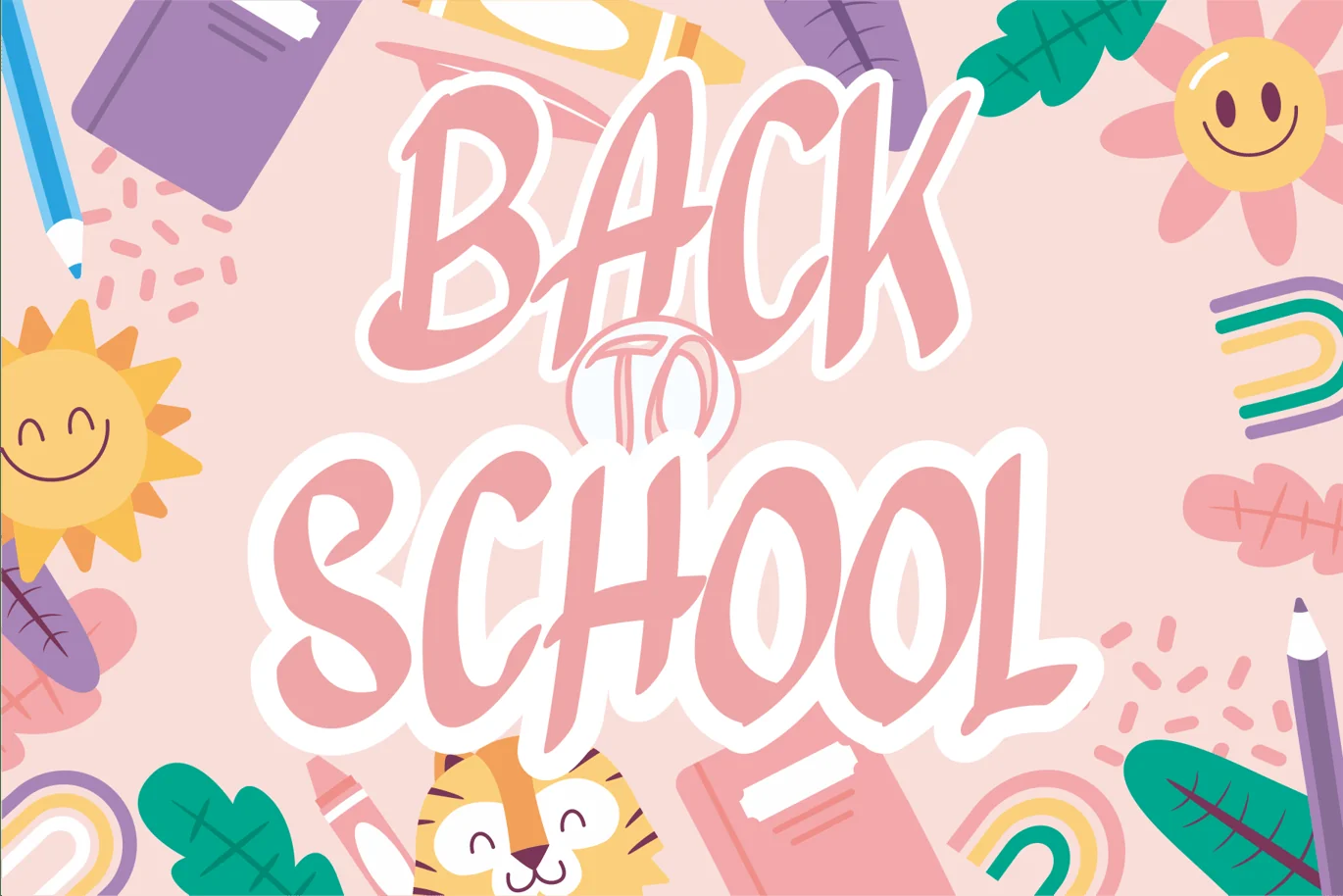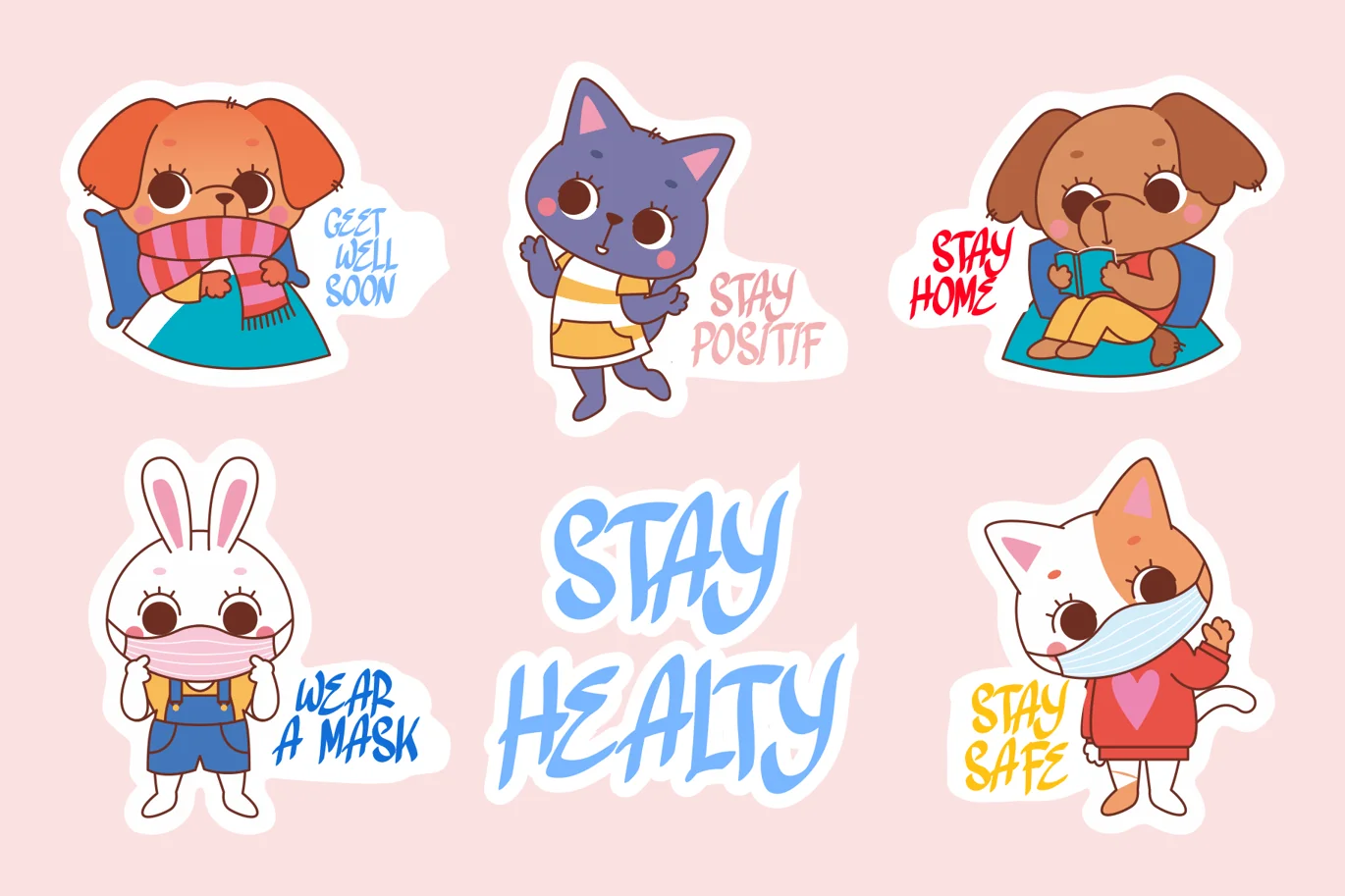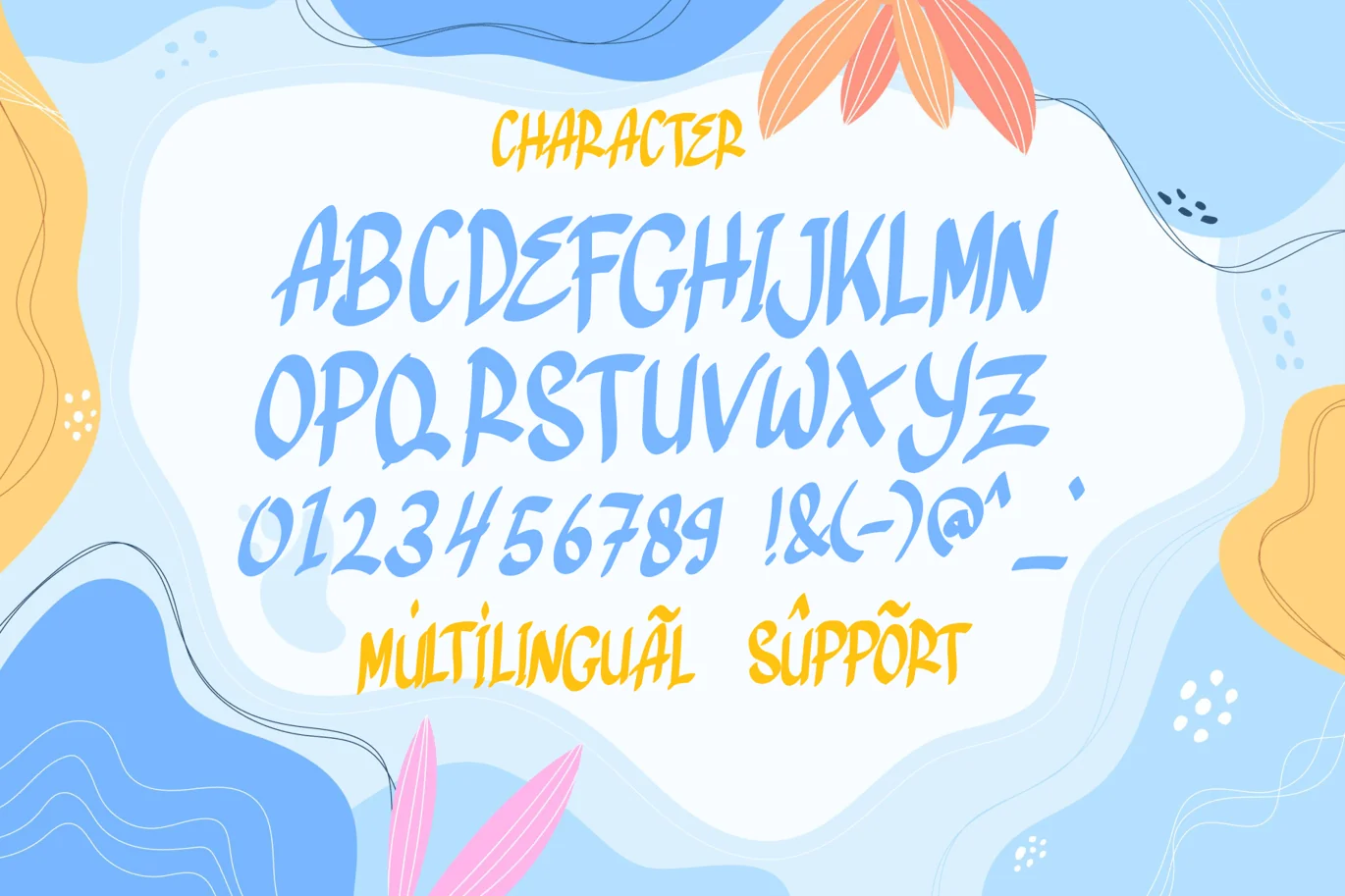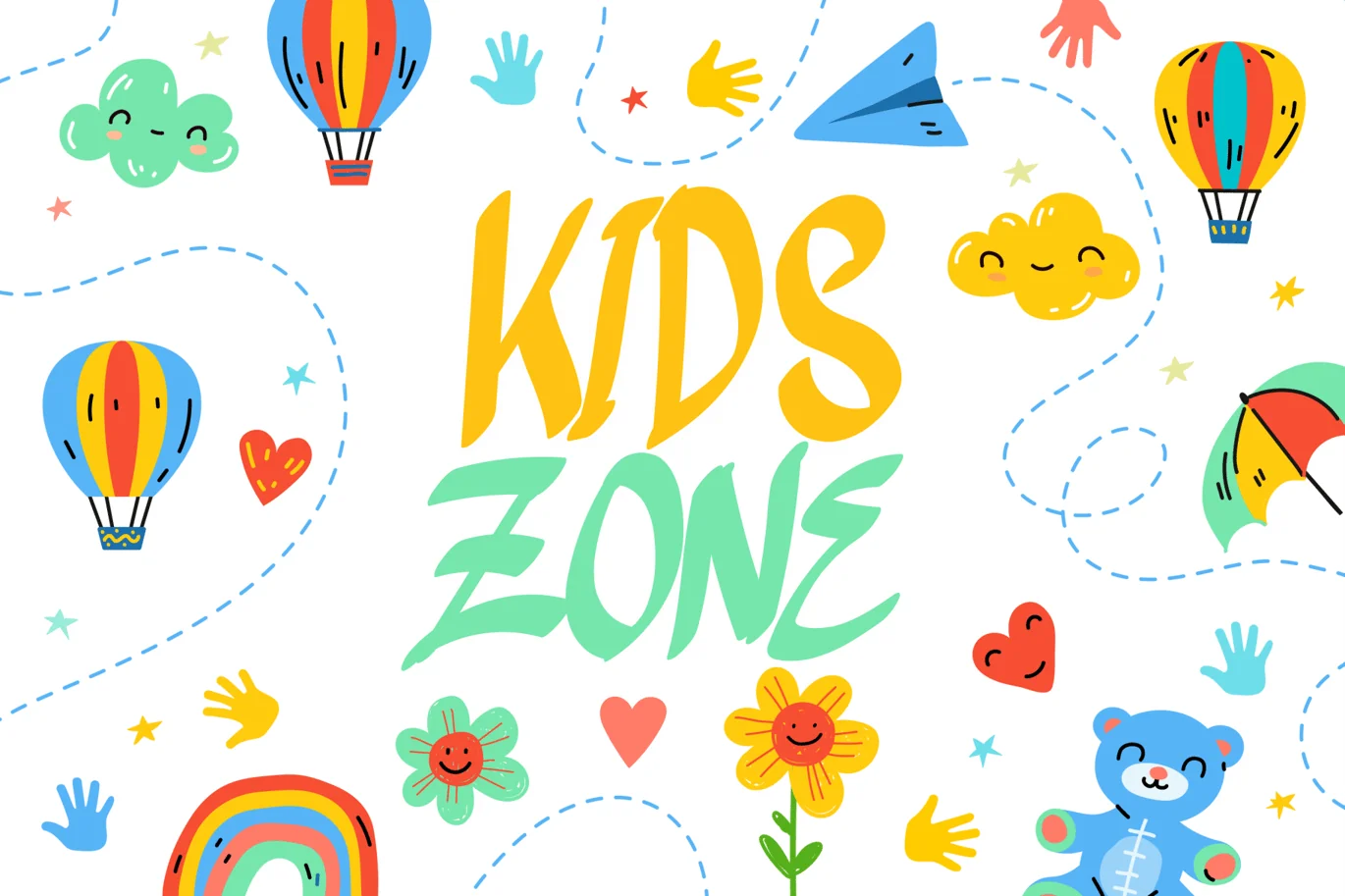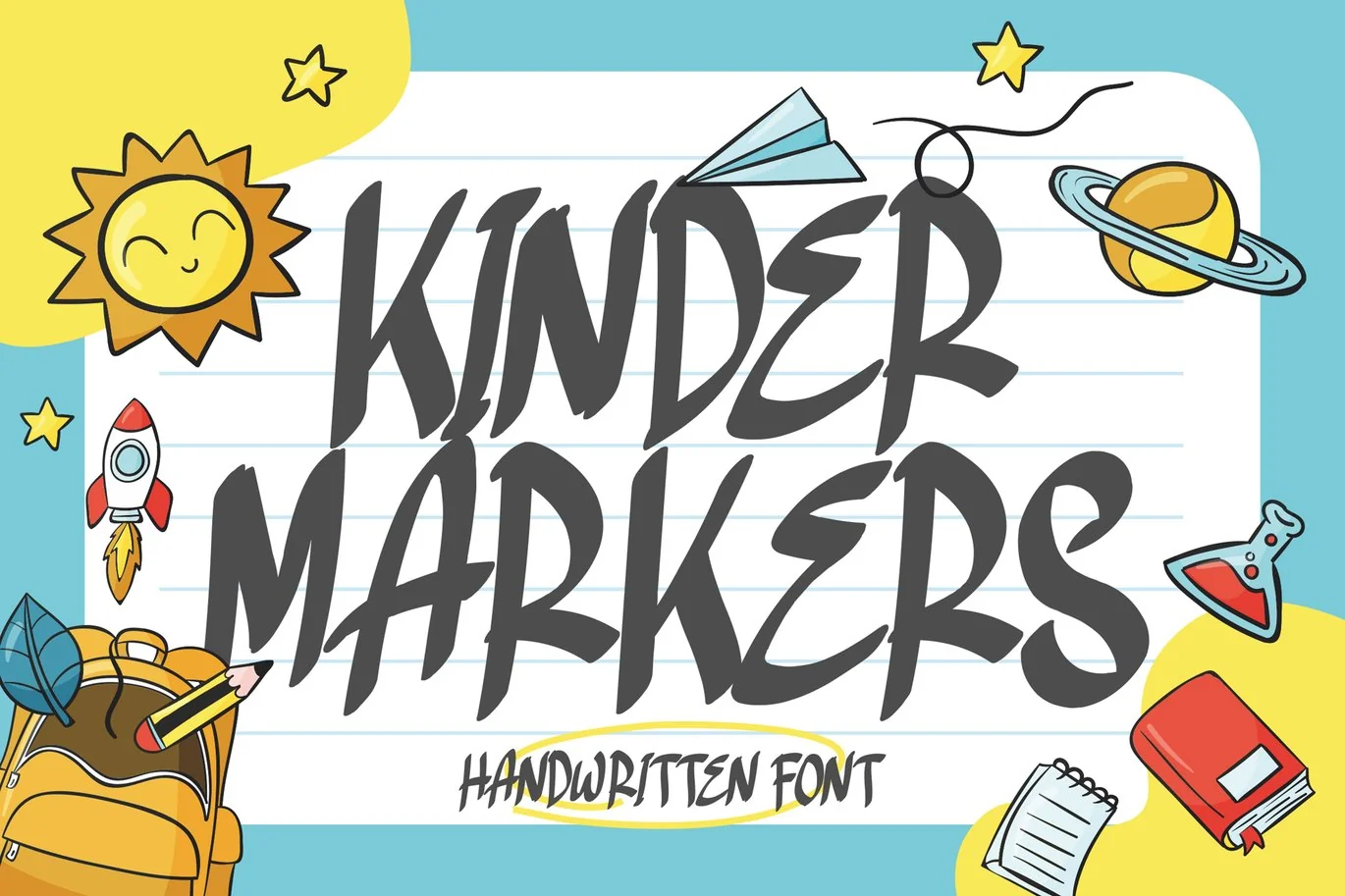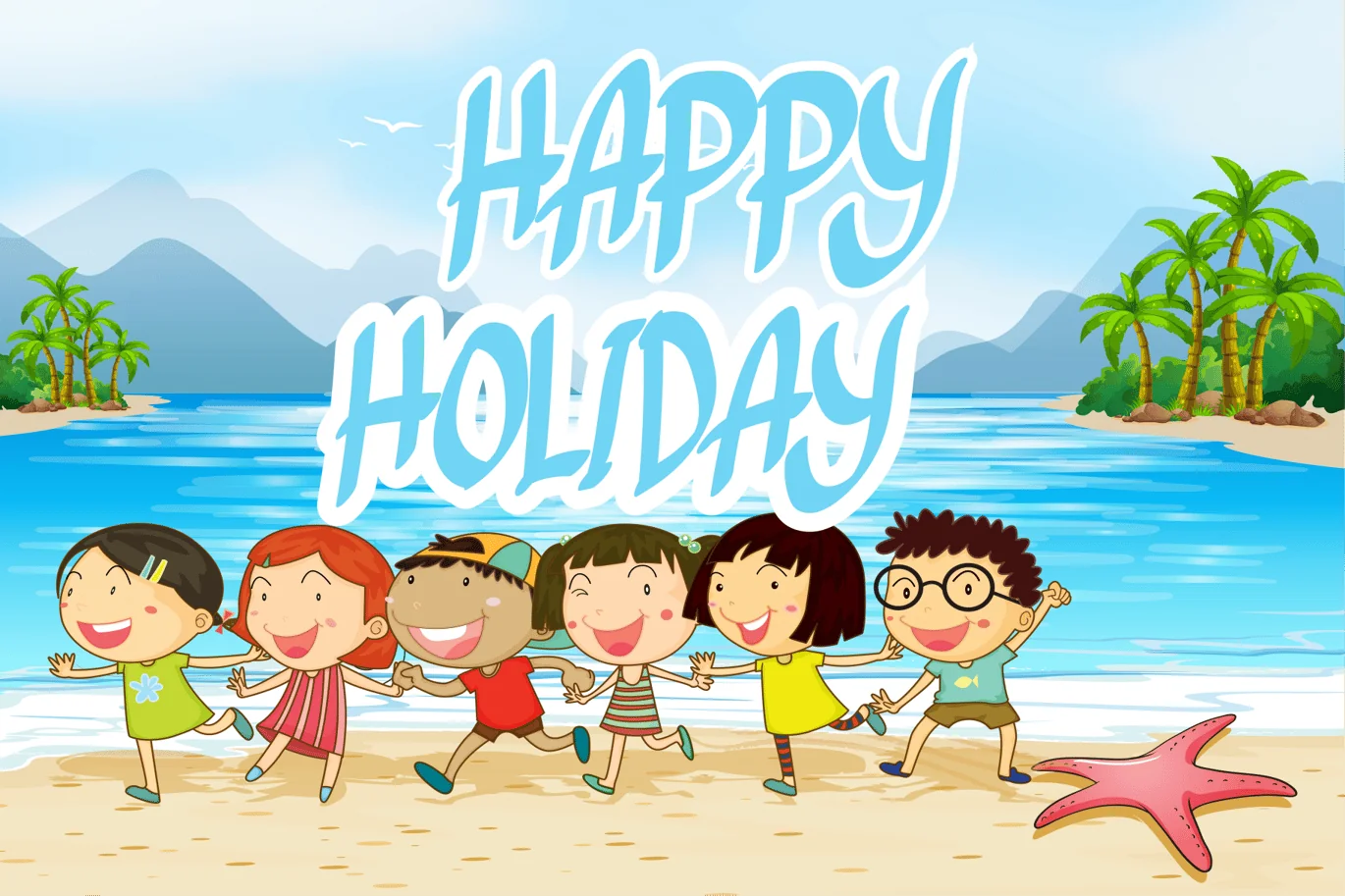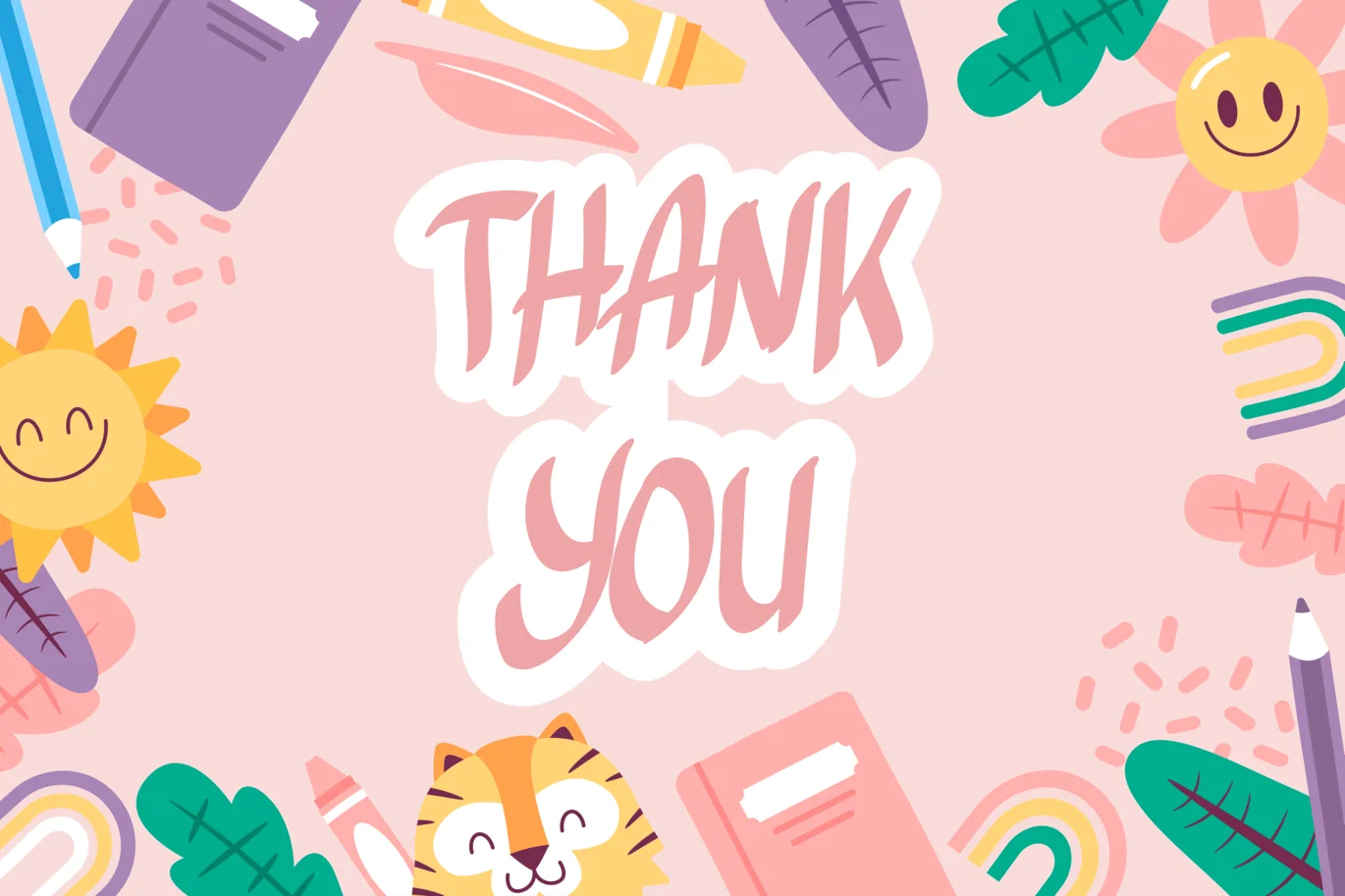
Kinder Markers – Handwritten Font
Kinder Markers is a charming handwritten marker font that exudes the innocence and spontaneity of young learners. With its imperfect strokes and genuine handmade feel, this font captures the essence of a child’s first attempts at writing. Whether you’re designing educational materials, playful invitations, or delightful crafting projects, Kinder Markers adds a touch of youthful authenticity. Let this font bring a sense of warmth and nostalgia to your creations as if they were crafted with colorful markers by little hands themselves.